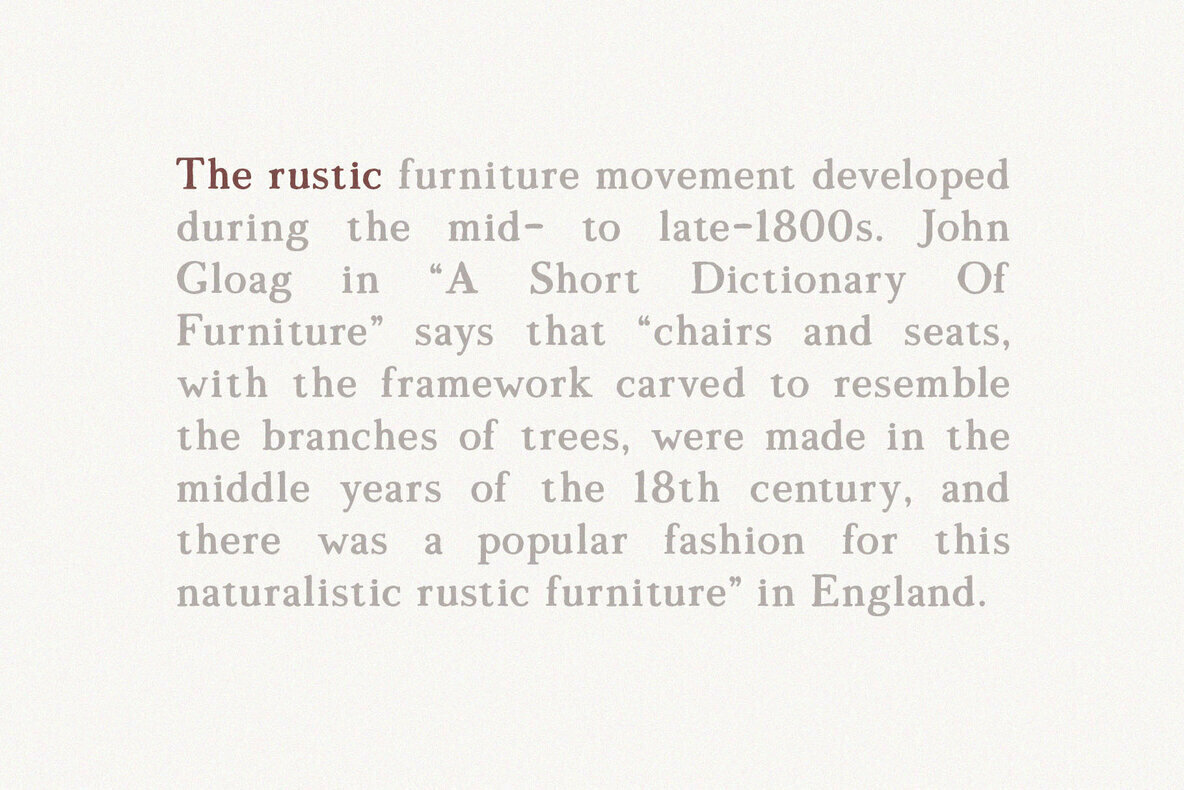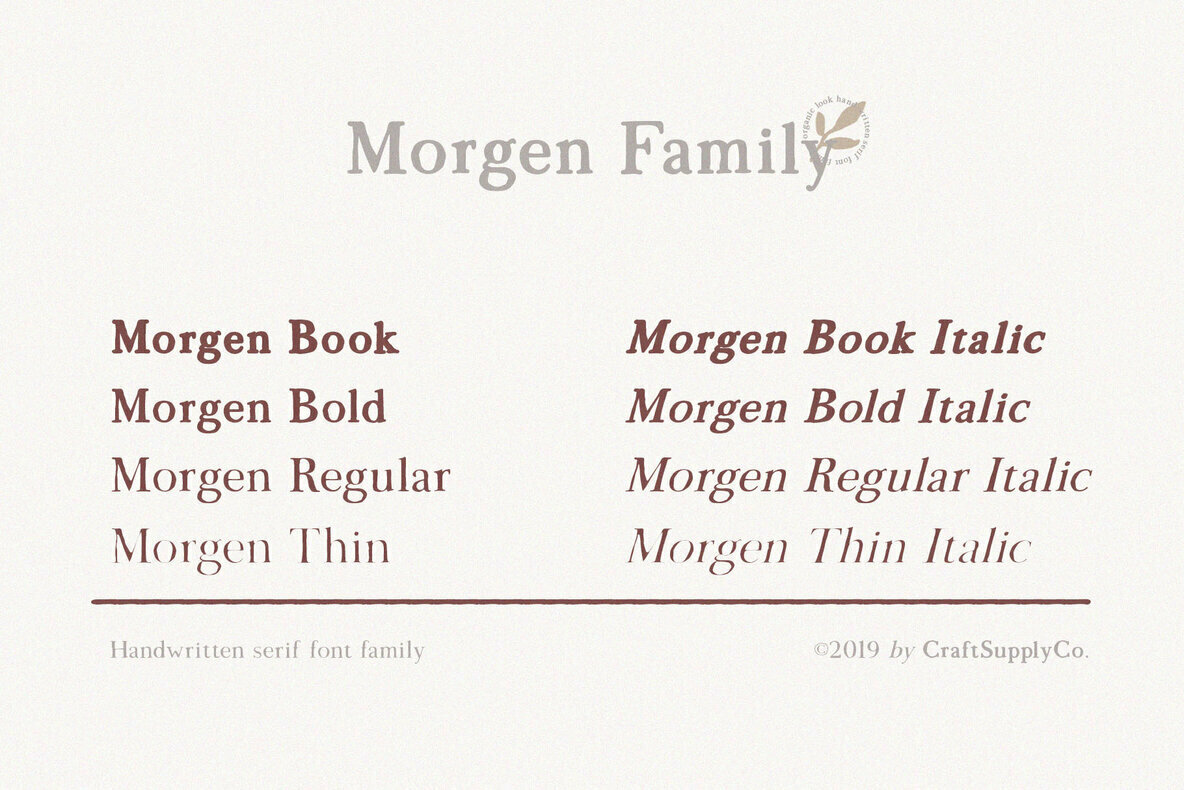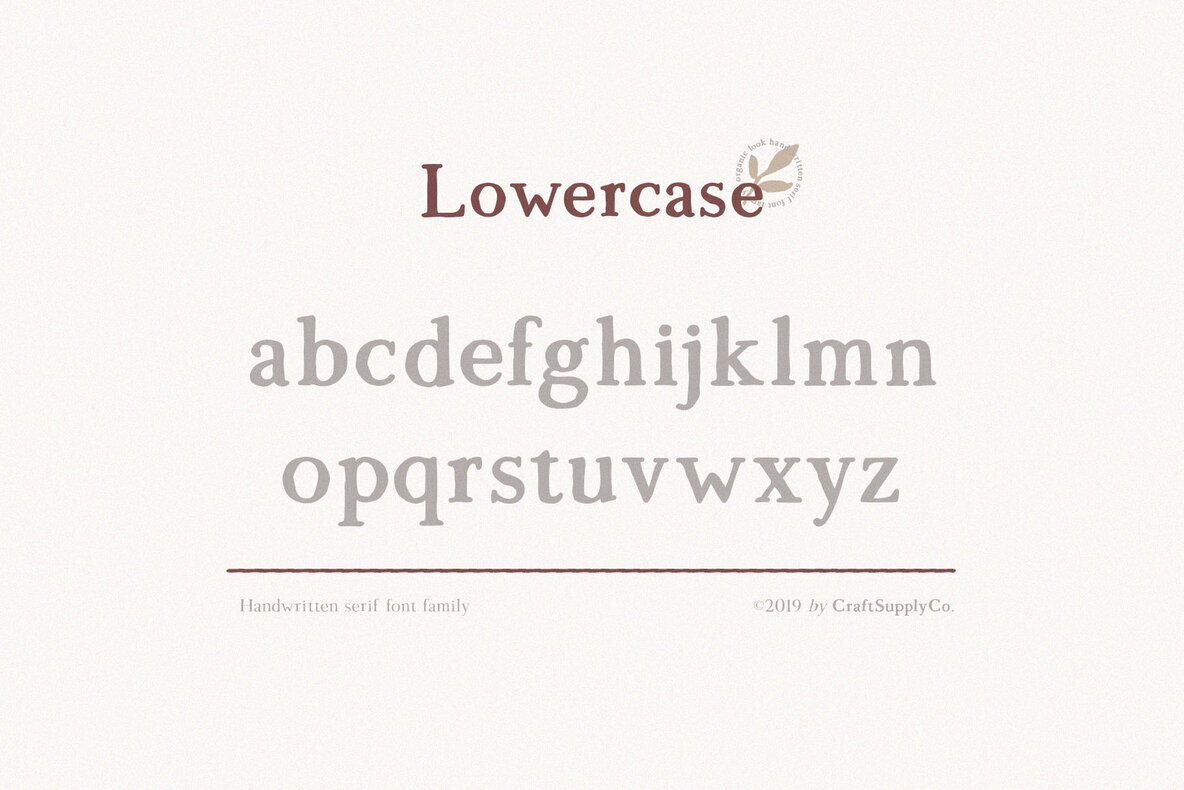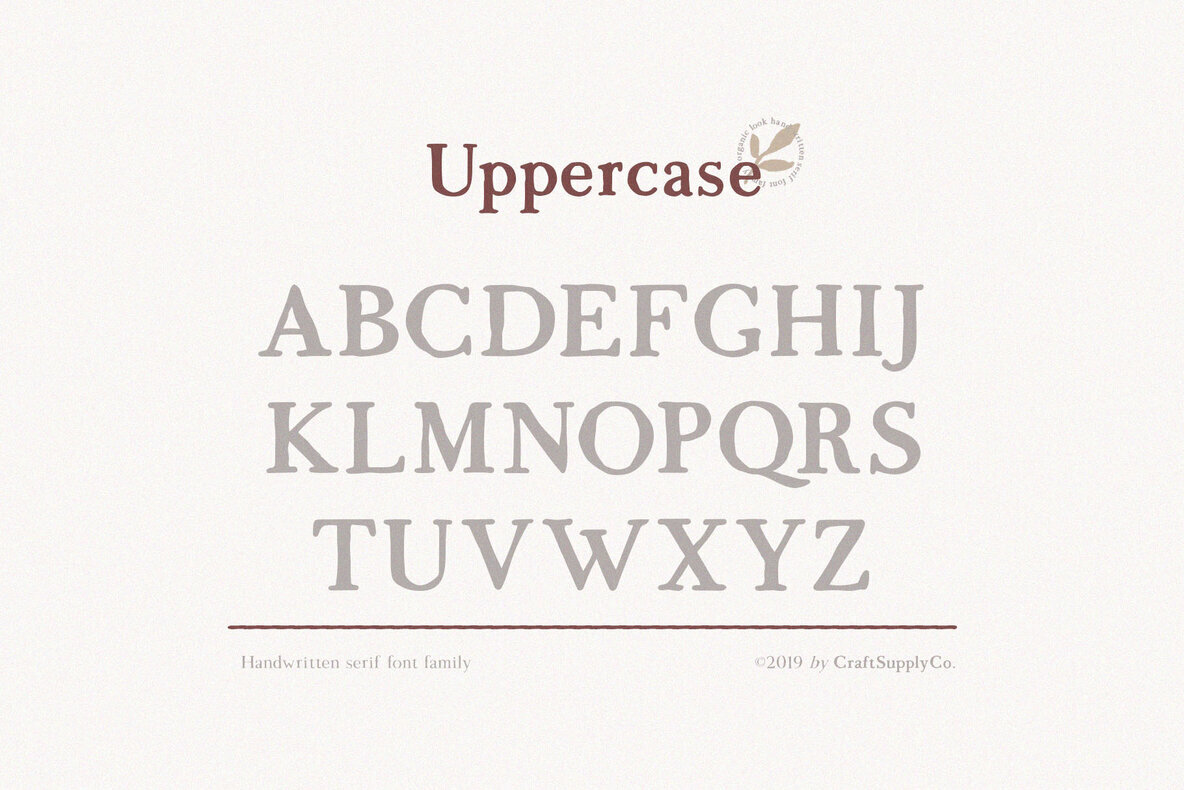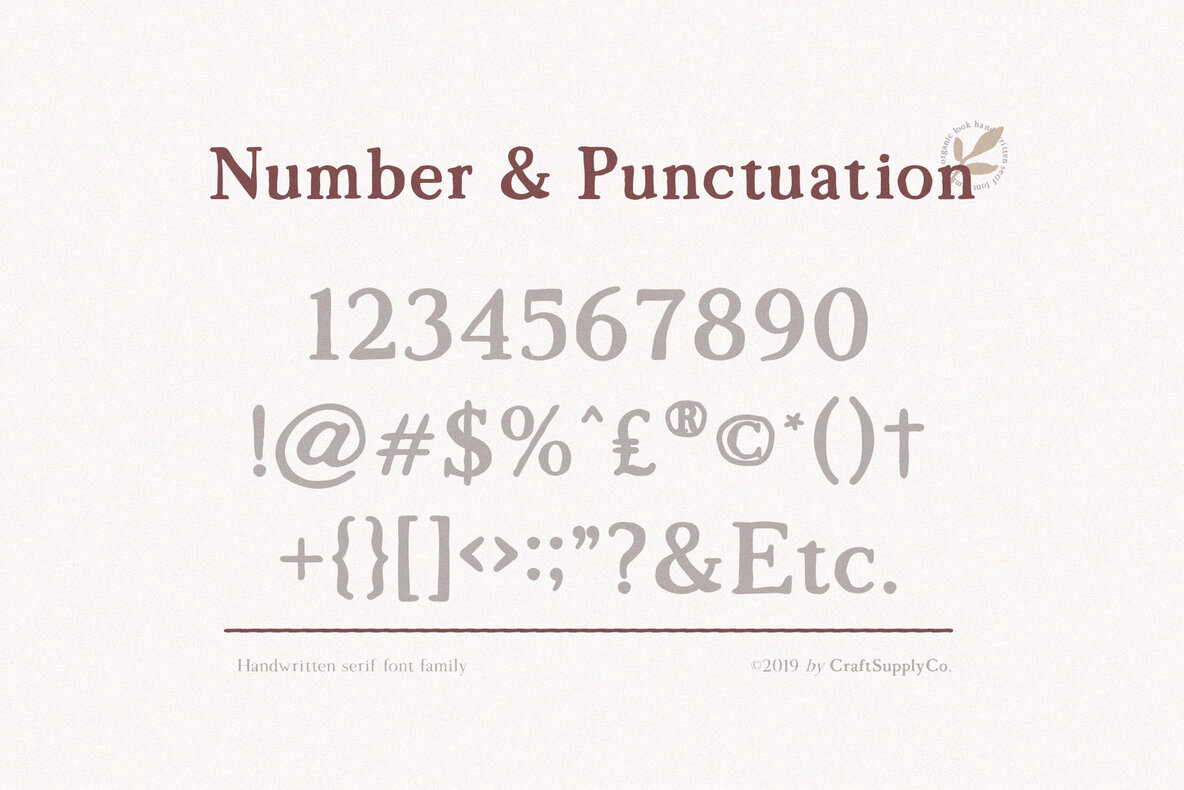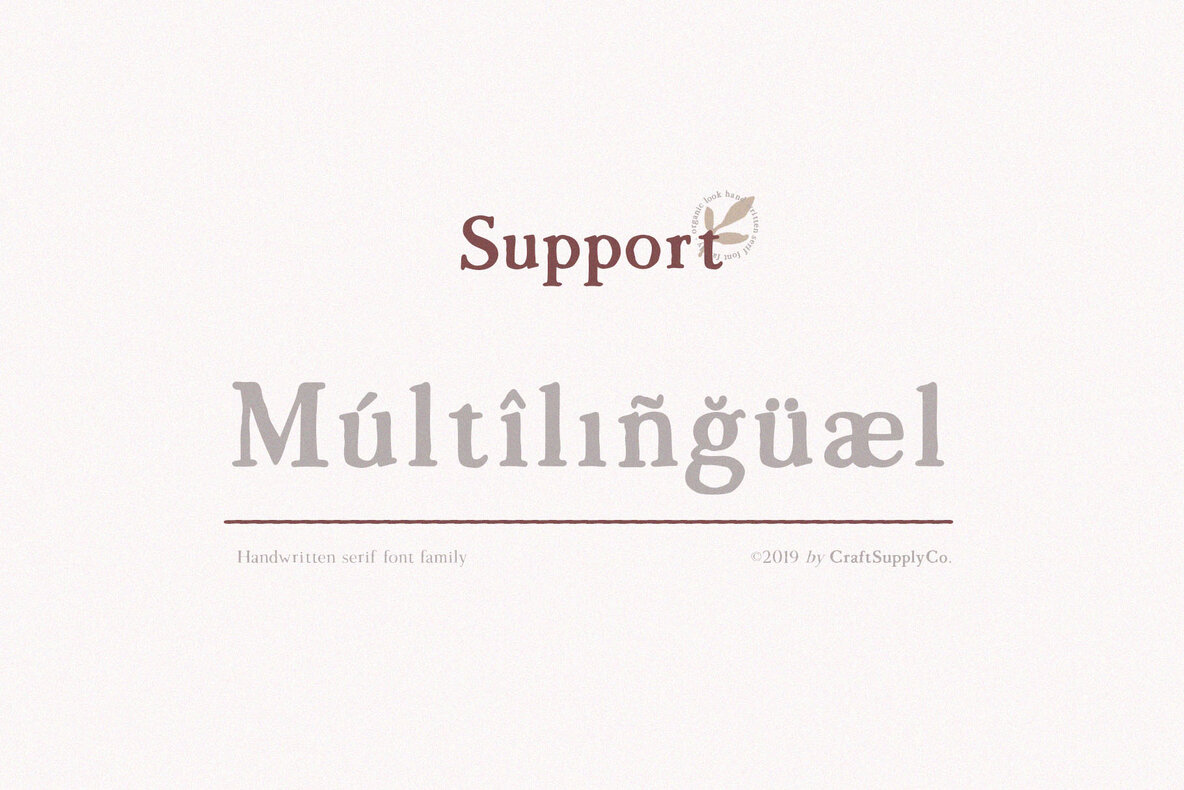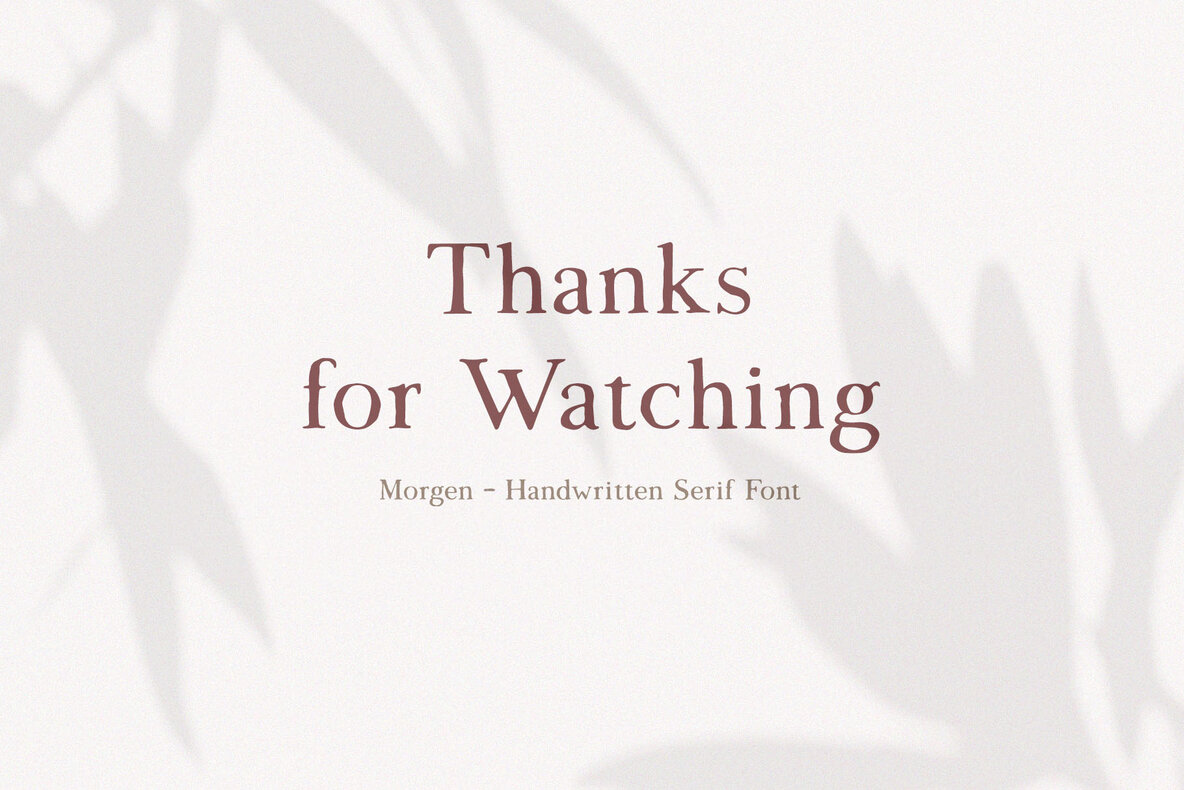
Morgen Font
Morgen by Craft Supply Co. is a versatile handwritten serif font family that fits seamlessly into a myriad of design projects. Its warm and engaging aesthetic makes it ideal for greeting cards, package designs, brand identities, DIY projects, book titles, and more. This font family invites you to bring your creative visions to life, ensuring your projects not only communicate effectively but also captivate your audience. The Morgen font family includes styles like Thin, Regular, Bold, and Book, with italic versions for each—giving you a wide range of typographic choice. Whether you're crafting a wedding invitation or a retro design, Morgen's unique charm ensures your work stands out.Morgen: Handwritten Serif Font Family for Diverse Designs